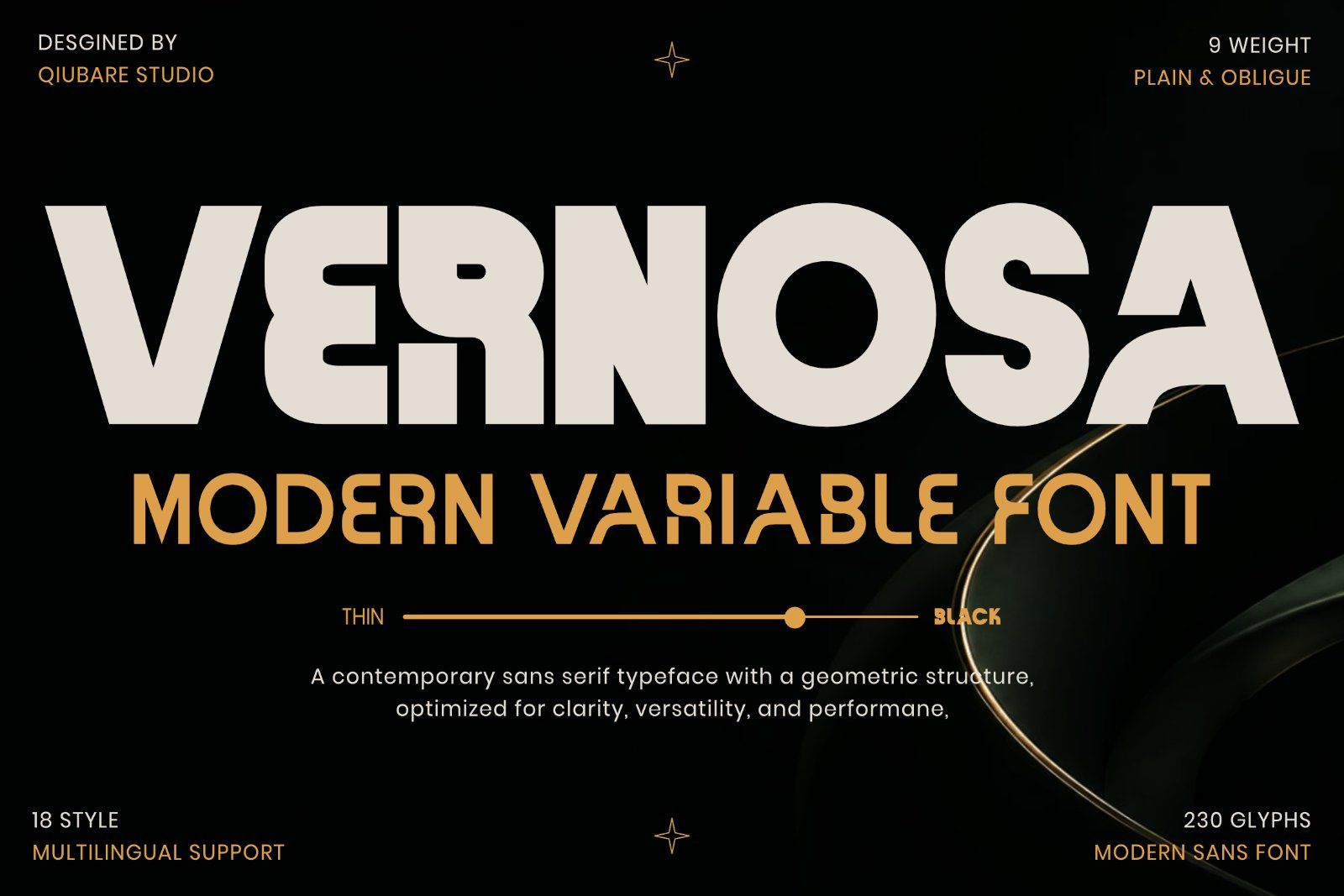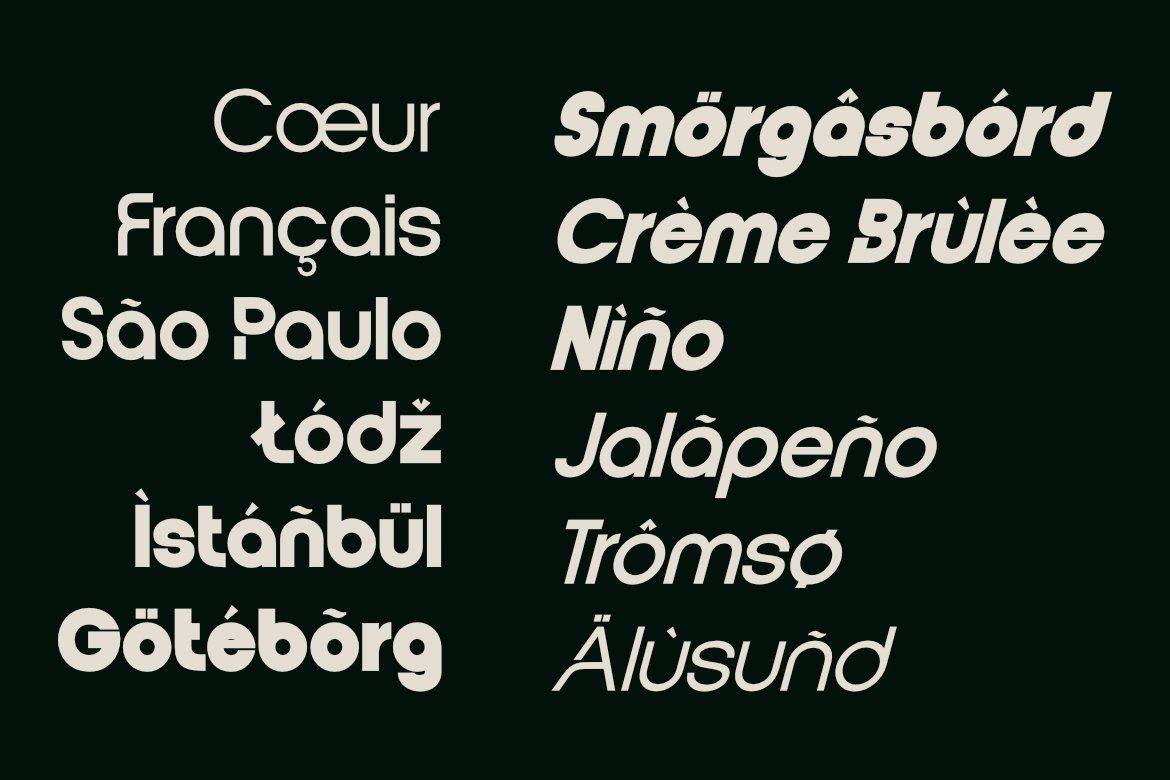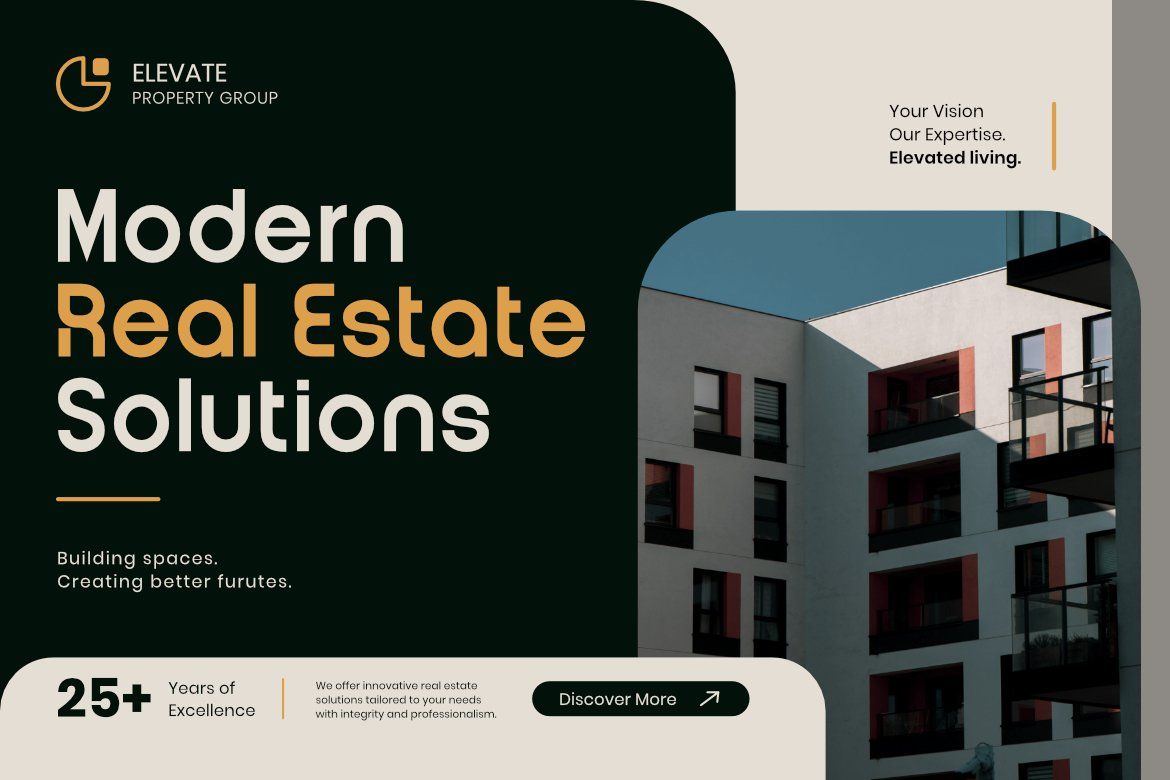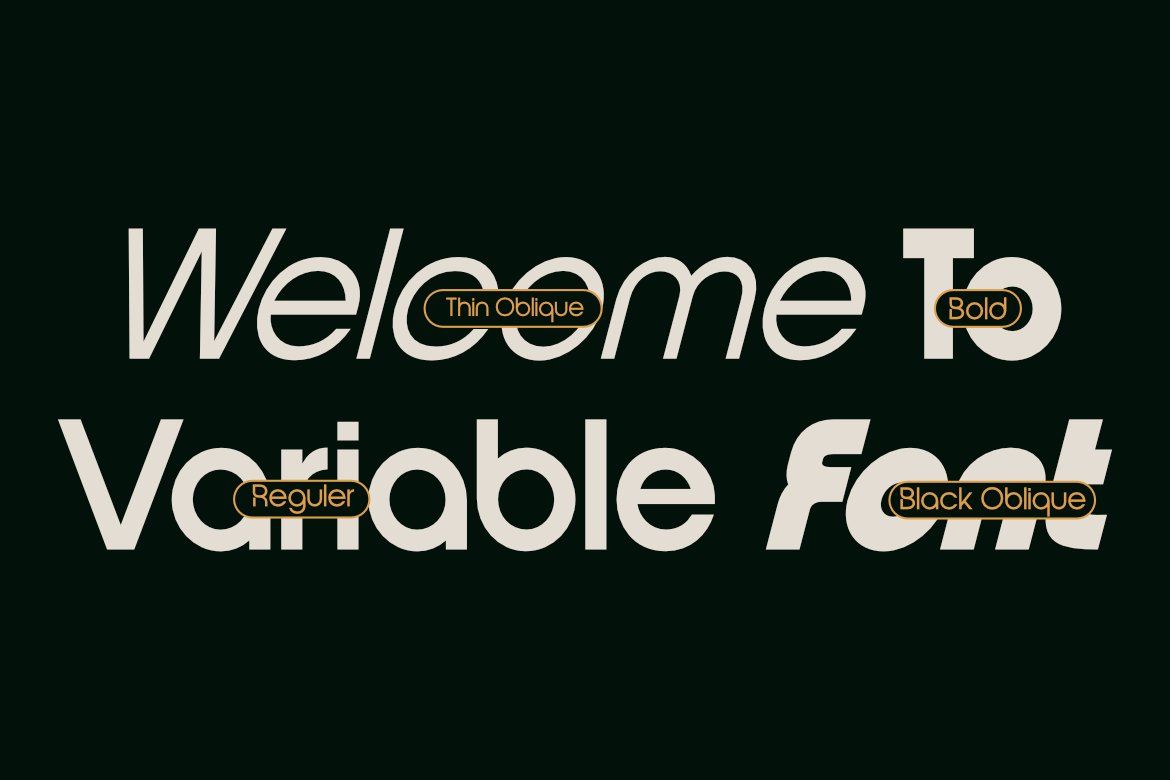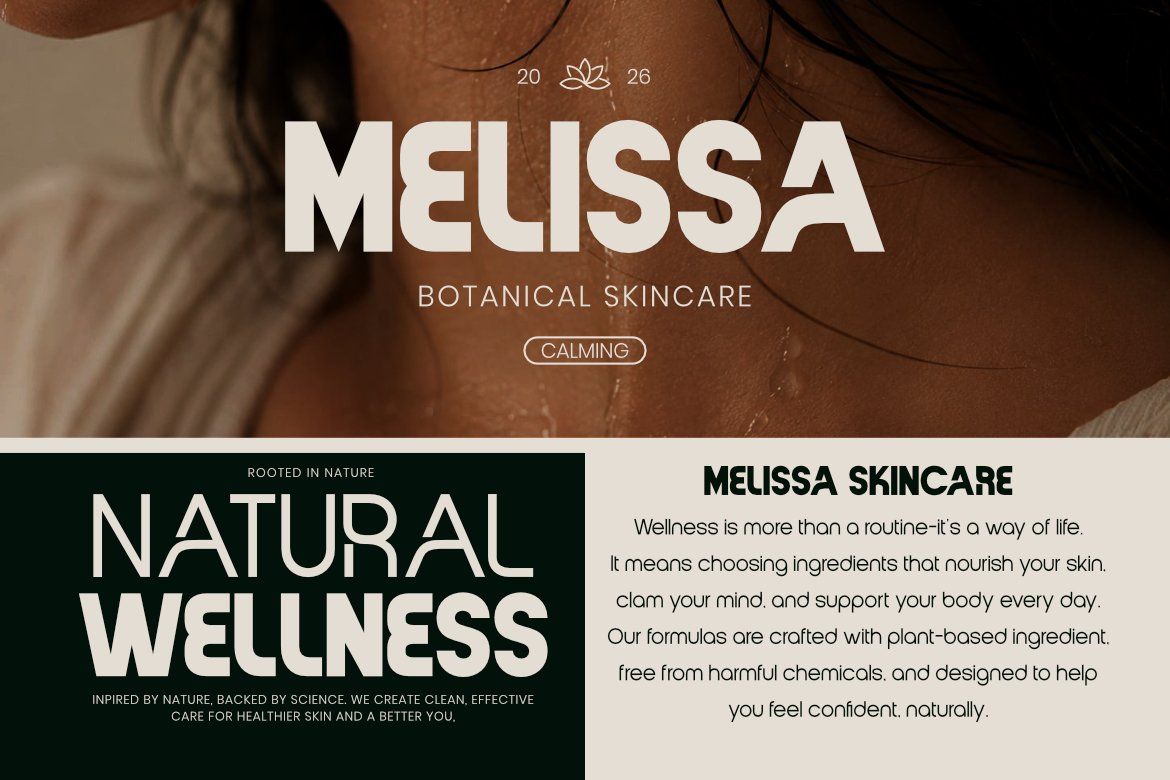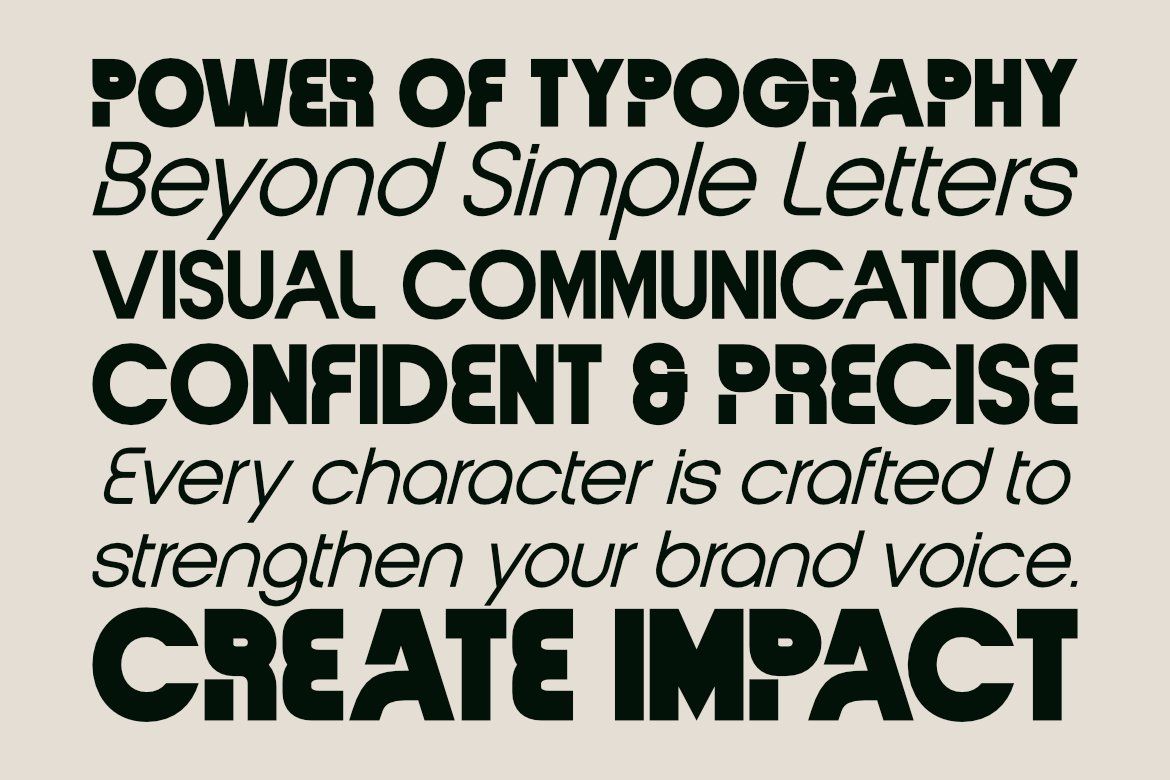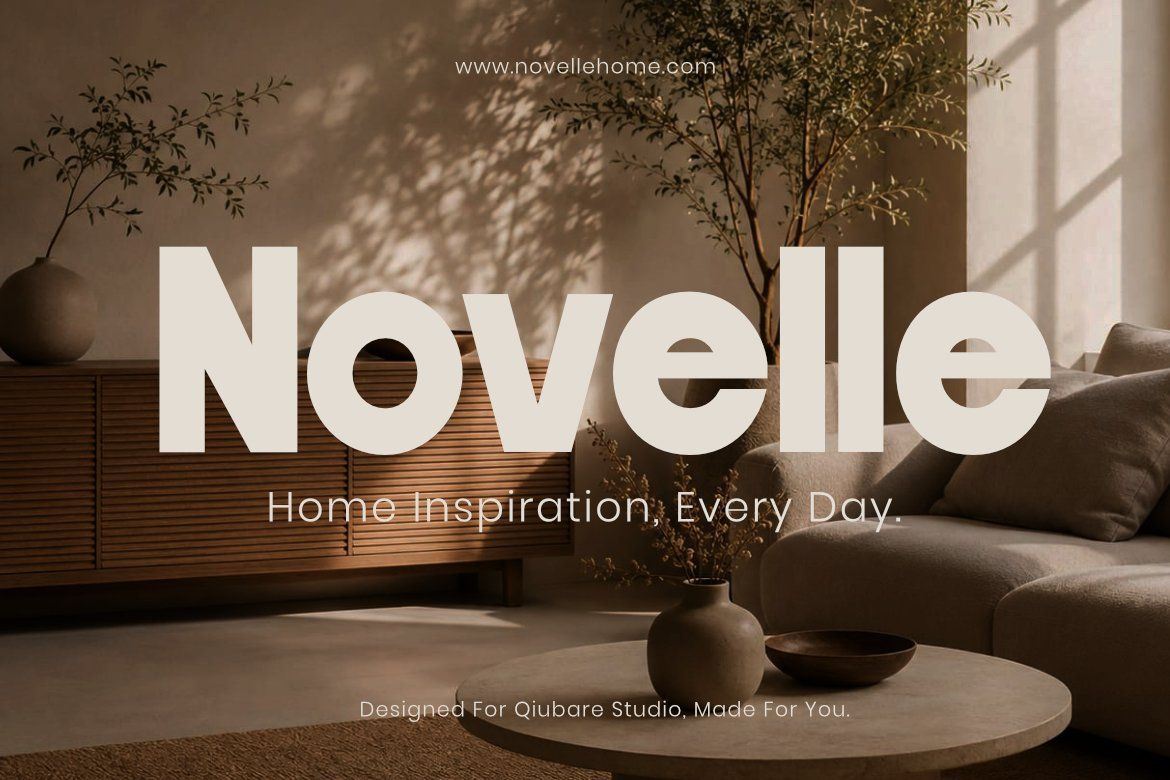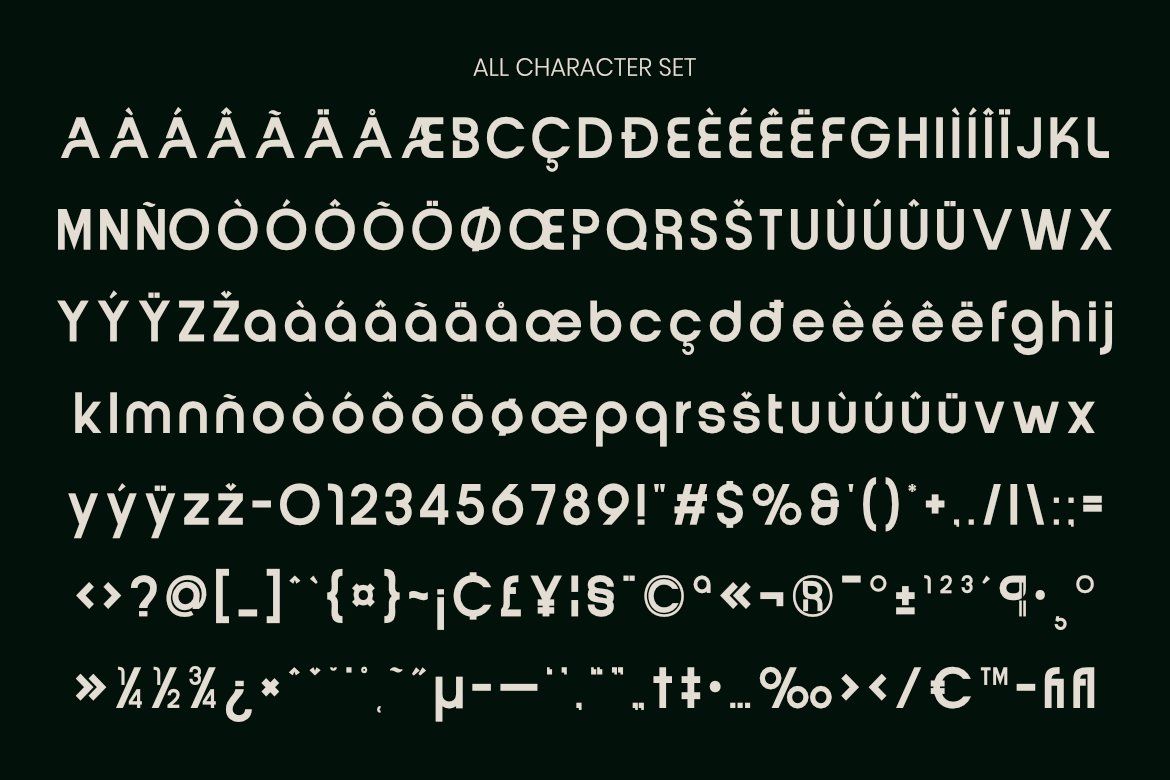
Vernosa is a contemporary variable sans serif font family crafted with clean geometry, refined proportions, and exceptional readability. Designed for modern branding and digital experiences, Vernosa offers a balanced combination of bold personality and minimalist elegance.
With 18 styles including 9 upright weights and 9 oblique styles, this versatile typeface adapts effortlessly to everything from premium branding to editorial layouts, websites, packaging, presentations, and user interfaces.
Its carefully engineered letterforms deliver excellent clarity across both large headlines and smaller text sizes, making Vernosa an ideal choice for designers seeking a professional, timeless, and flexible sans serif family.
Variable Font
18 Font Styles
9 Upright Weights
9 Oblique Styles
Thin – Black
Uppercase & Lowercase
Numerals & Punctuation
Multilingual Support
Ligatures
Perfect For :
Branding
Logo Design
Editorial
UI / UX Design
Website Headers
Packaging
Fashion
Luxury Branding
Corporate Identity
Advertising
Social Media
Magazine
Product Design
Real Estate
Technology